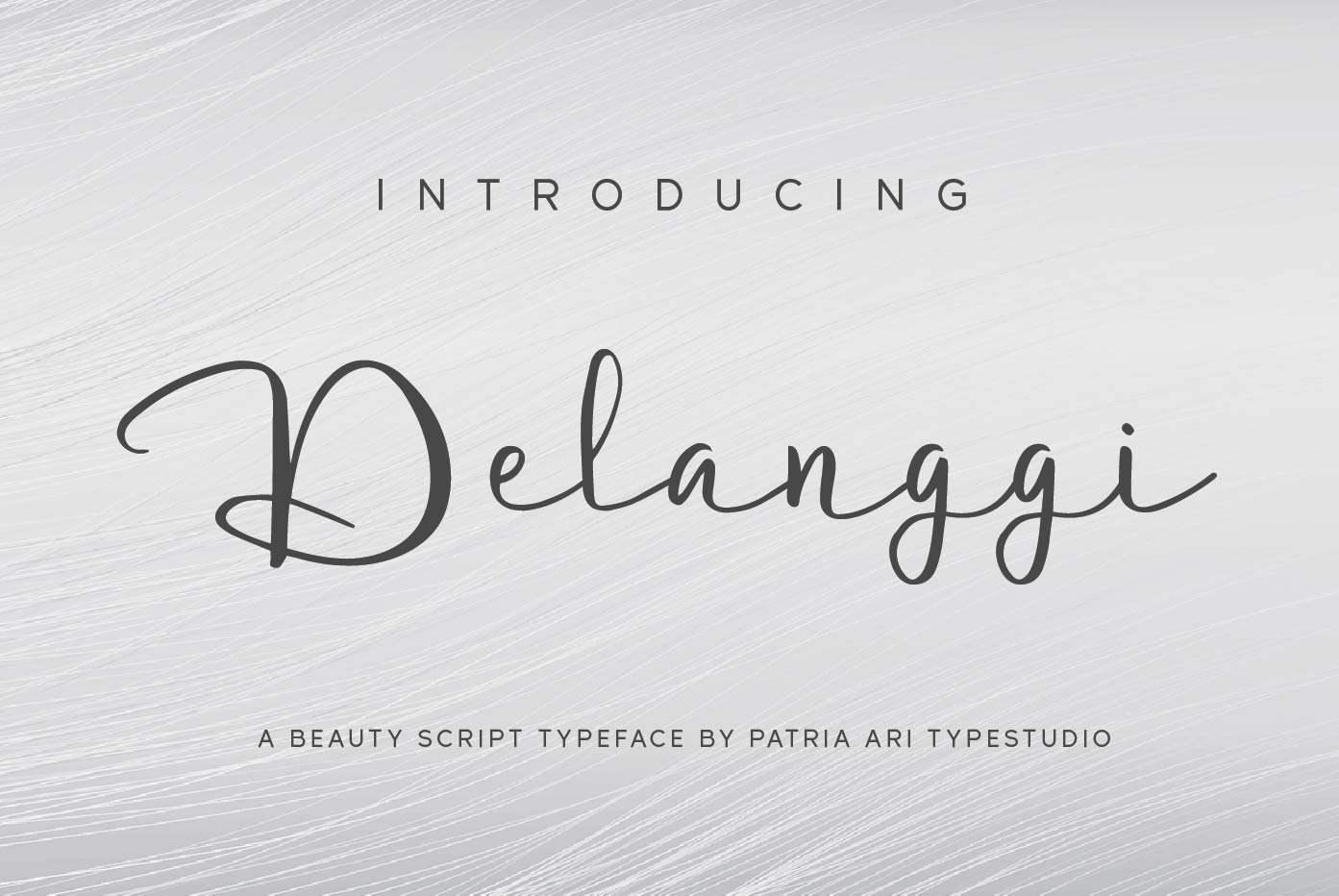
Delanggi - Handwritten Script Fonts
Delanggi is a minimalist handwritten signature-style script made from scratch.
Delanggi is perfect for branding projects, logo, wedding designs, social media posts, advertisements, product packaging, product designs, label, photography, watermark, invitation, stationery and any projects that need handwriting taste.